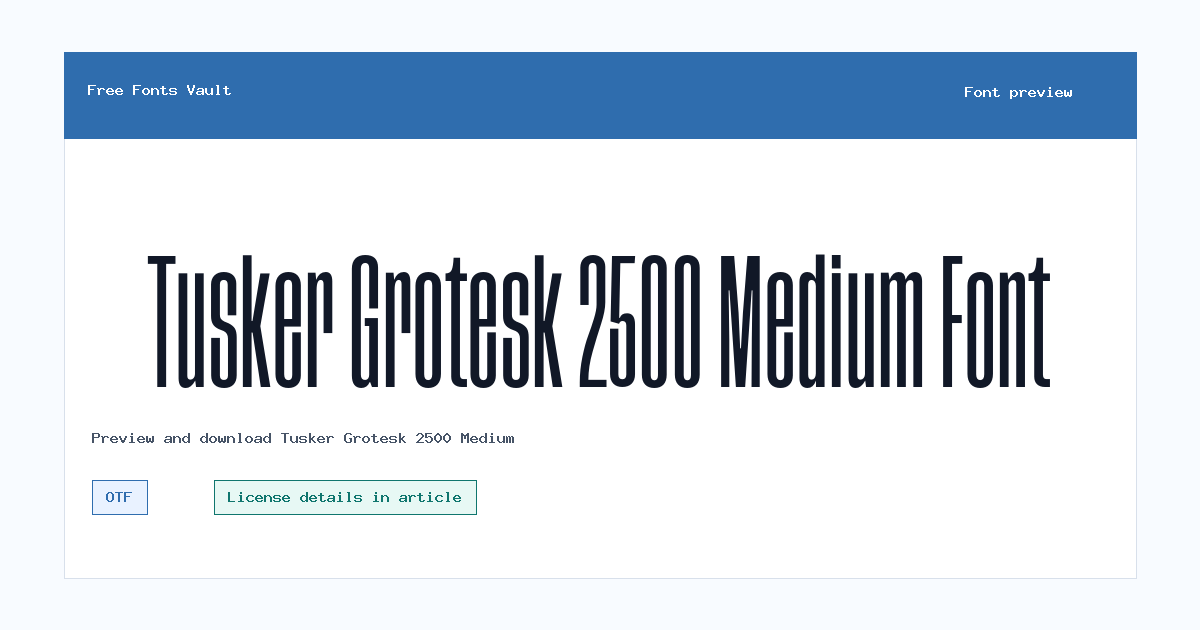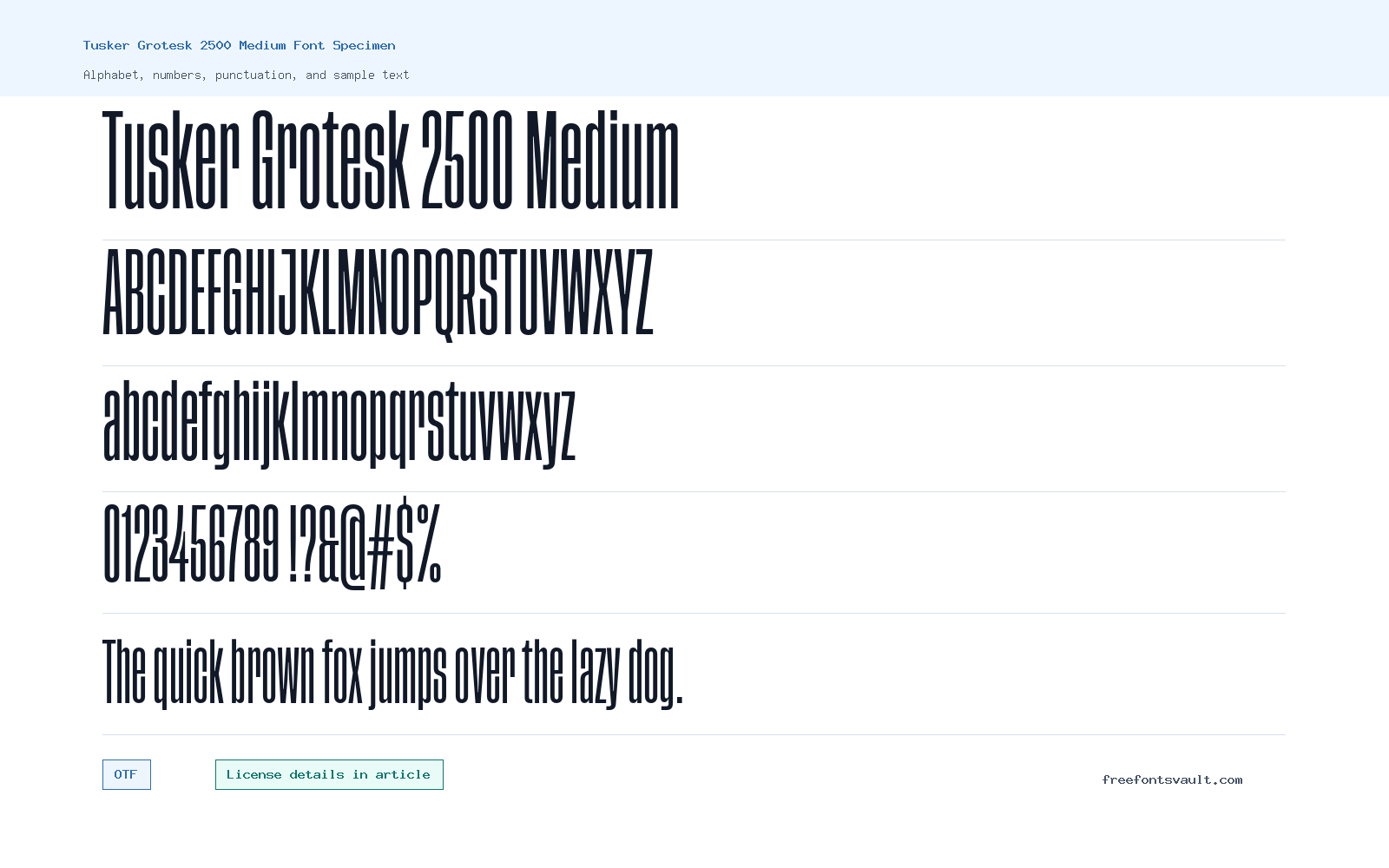
Tusker Grotesk 2500 Medium
- Designer Lewis McGuffie
- Foundry Lewis McGuffie
Tusker Grotesk 2500 Medium is a medium-weight display font in OTF format, suited to bold titles, posters, and short pieces of text that need a strong grotesque look.
Tusker Grotesk 2500 Medium has a normal style with a 500 weight, giving it a steady, mid-weight feel rather than an ultra-light or extra-heavy appearance. The name points to the Tusker Grotesk family, and this cut is useful when you want firm, compact lettering without pushing the design into the heaviest end of the range.
Use the preview box to test the exact words you plan to set, especially if your design includes all caps, numbers, punctuation, or tight spacing. This kind of display-focused grotesque is usually strongest in short text: headlines, labels, thumbnails, social graphics, and poster-style layouts. For longer reading, pair it with a calmer text face and keep Tusker Grotesk 2500 Medium for emphasis.
Because this weight sits between narrow headline impact and everyday heaviness, it is worth testing it with the real line length of your design. A one-word title can look confident, while a longer phrase may need extra tracking or a larger size. Check letter pairs, repeated capitals, and numbers in the live preview before choosing it for menus, packaging labels, cover art, or hero graphics.
- Strong grotesque display character suited to short, high-impact text
- Medium weight gives headings presence without the density of the heaviest Tusker cuts
- Headlines, posters, banners, and title treatments
- Logos, labels, thumbnails, and social media graphics where short text needs weight
- Secondary headings in systems that also use heavier grotesque display styles
Tusker Grotesk 2500 Medium is credited to Lewis McGuffie, with Lewis McGuffie also listed as the foundry.
Try it first at the size you plan to use. Adjust letter spacing for all-caps settings, check numerals and punctuation in the preview, and avoid relying on it for long paragraphs unless your layout proves it remains comfortable to read. If your layout uses several Tusker styles, keep this medium cut for secondary emphasis and reserve heavier cuts for the places that need the strongest contrast.
What weight is Tusker Grotesk 2500 Medium?
It is listed with a 500 font weight, which is commonly treated as a medium weight.
What is this font best used for?
It is best tested for short display text such as headlines, posters, labels, logos, thumbnails, and social graphics.
Who designed Tusker Grotesk 2500 Medium?
The font is credited to Lewis McGuffie.